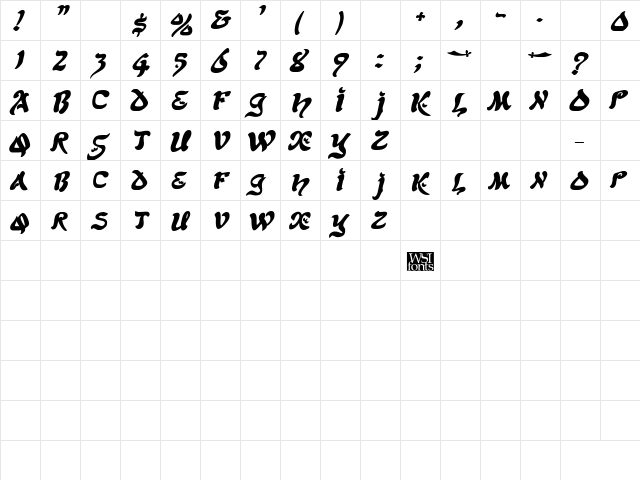
Scimitar Bold Italic
Design Context for Scimitar Typeface
Scimitar is a composed and adaptable typeface that performs quietly and consistently across a wide range of design contexts. The slanted form adds forward momentum and visual energy. The heavy weight commands attention and anchors typographic hierarchies.